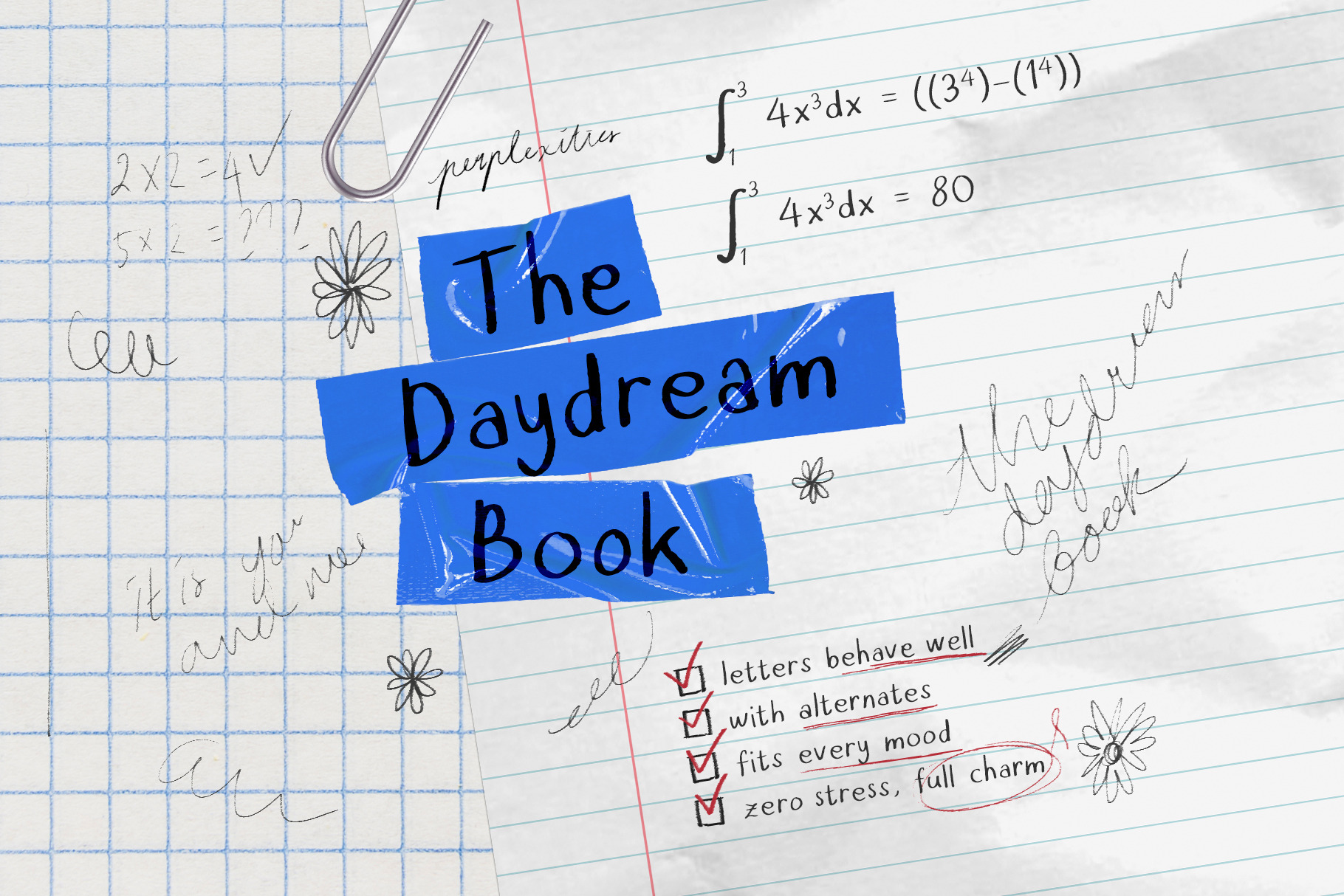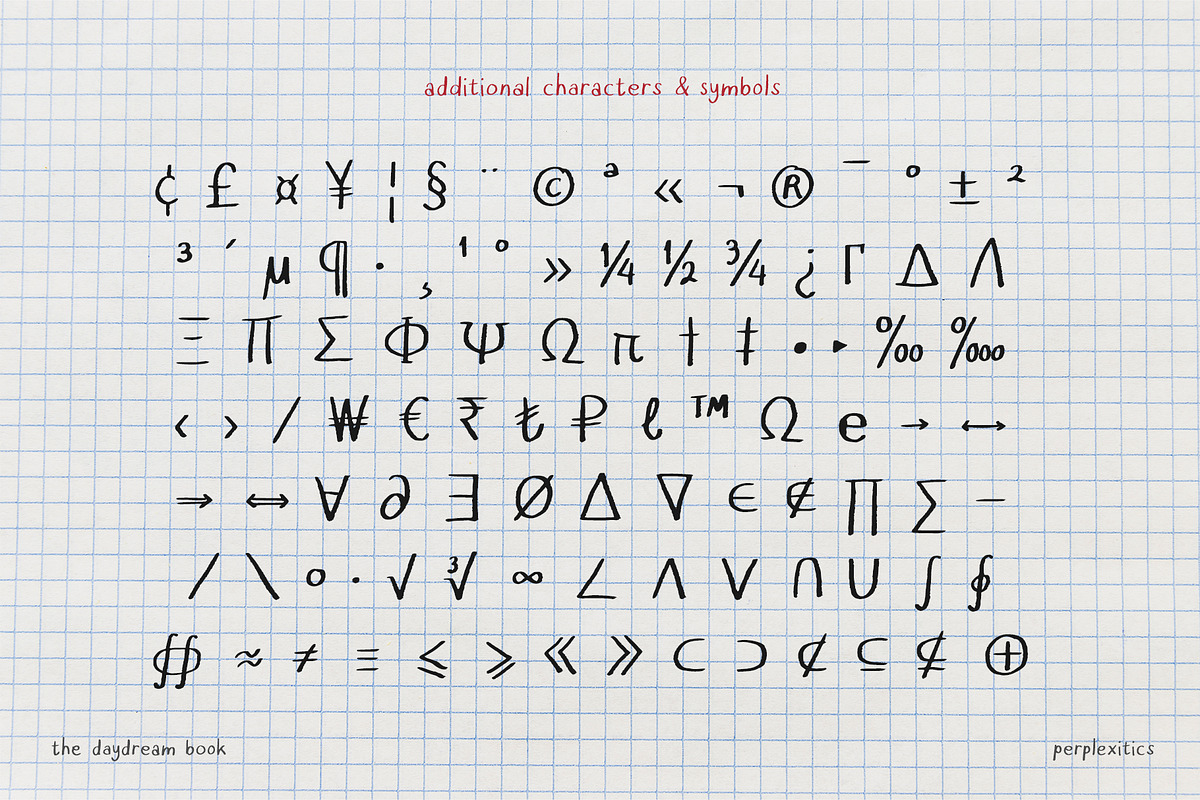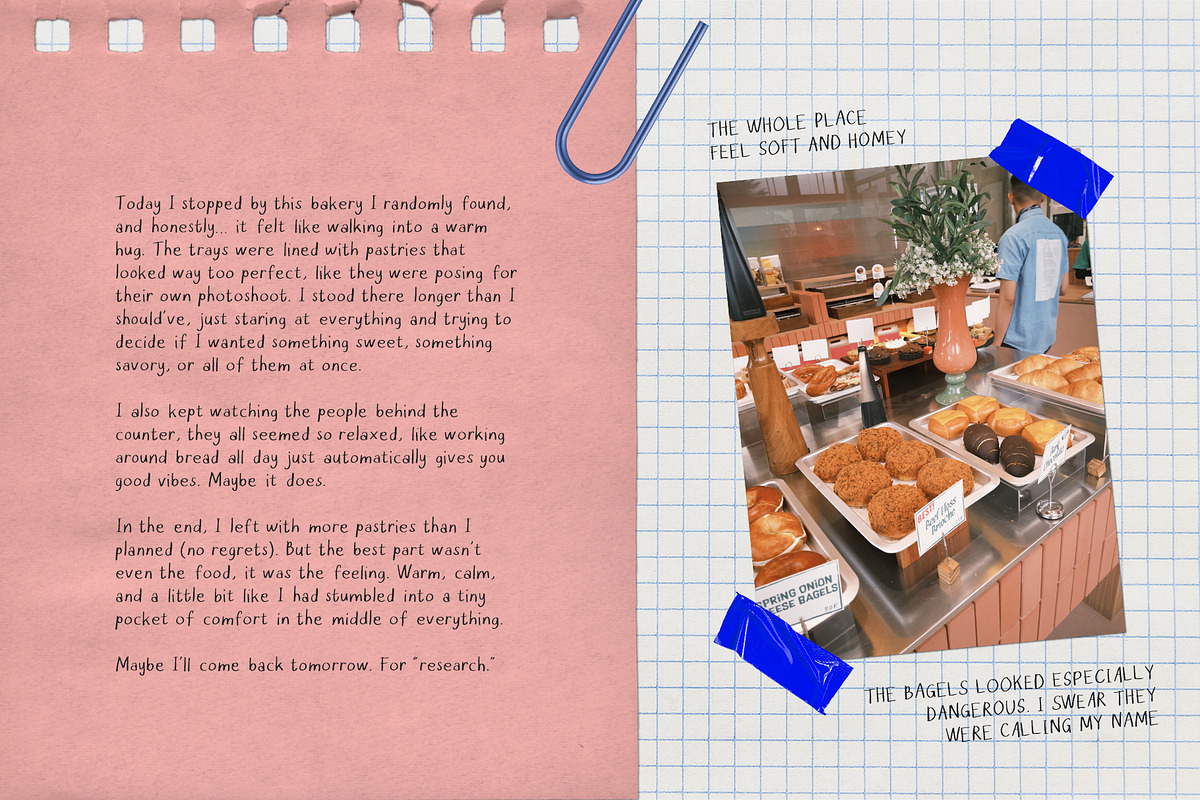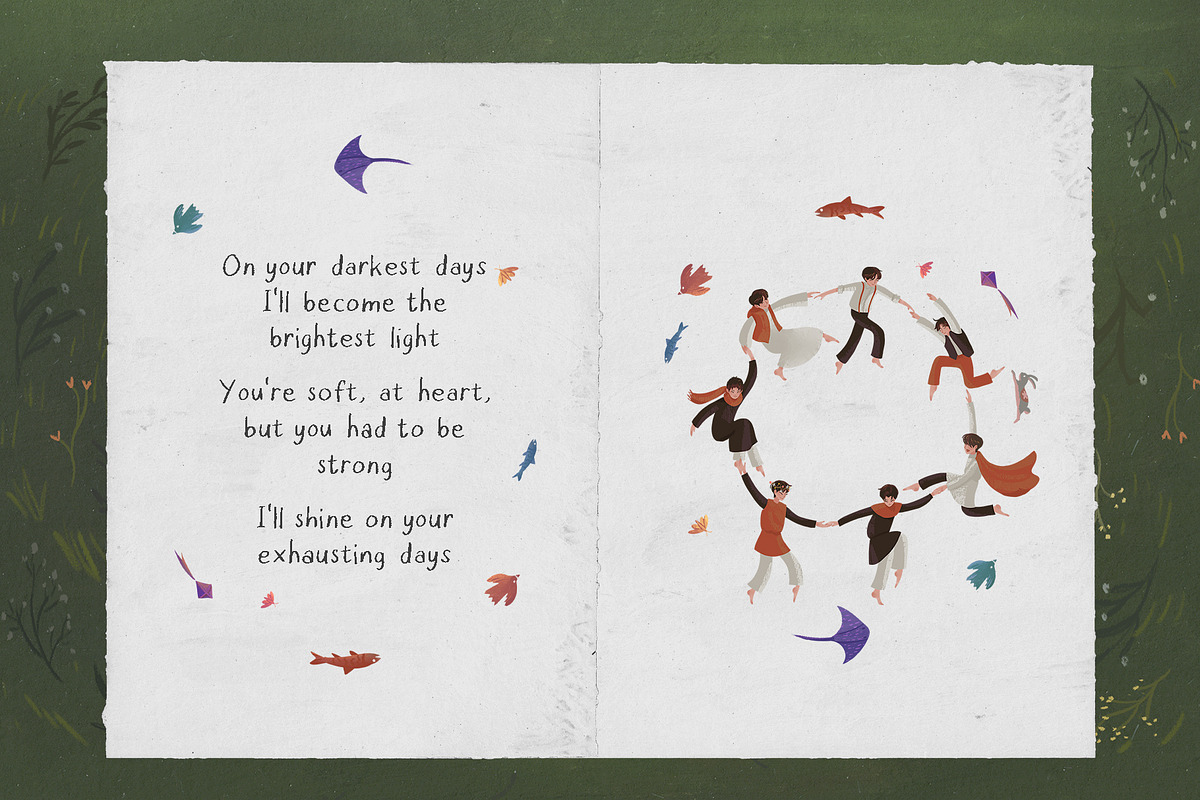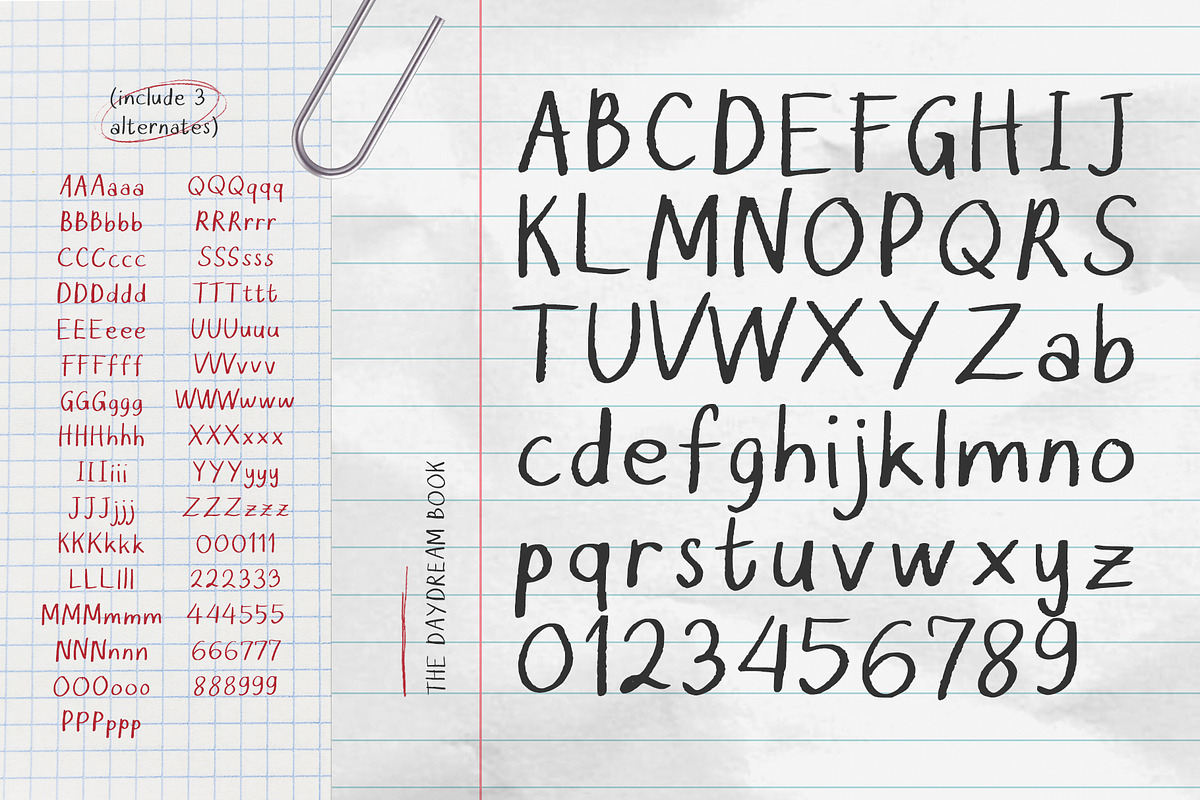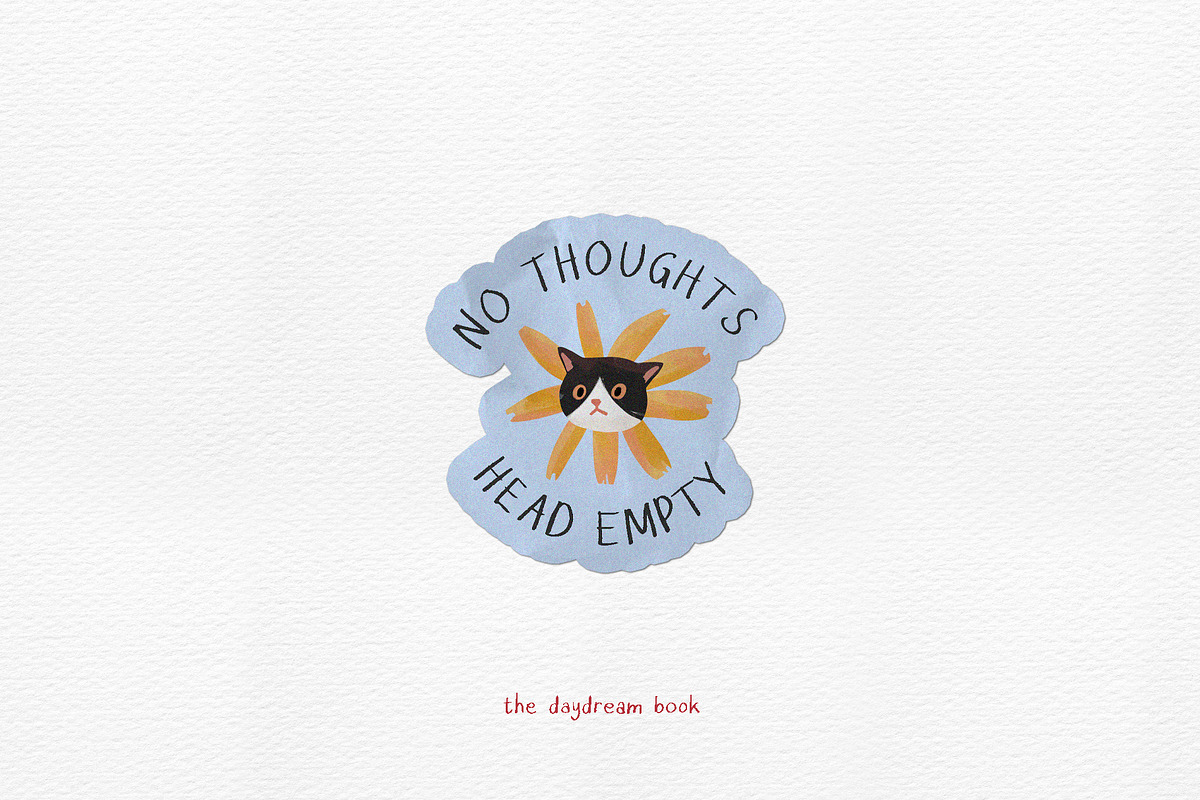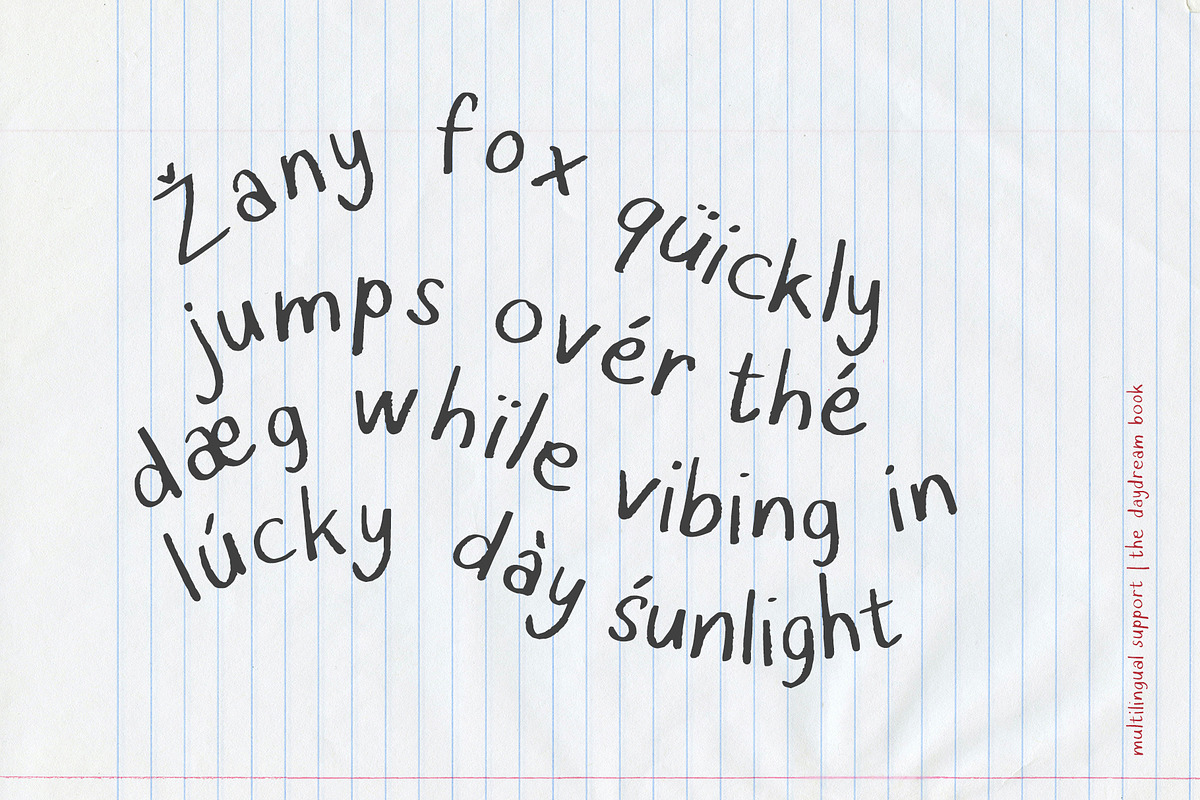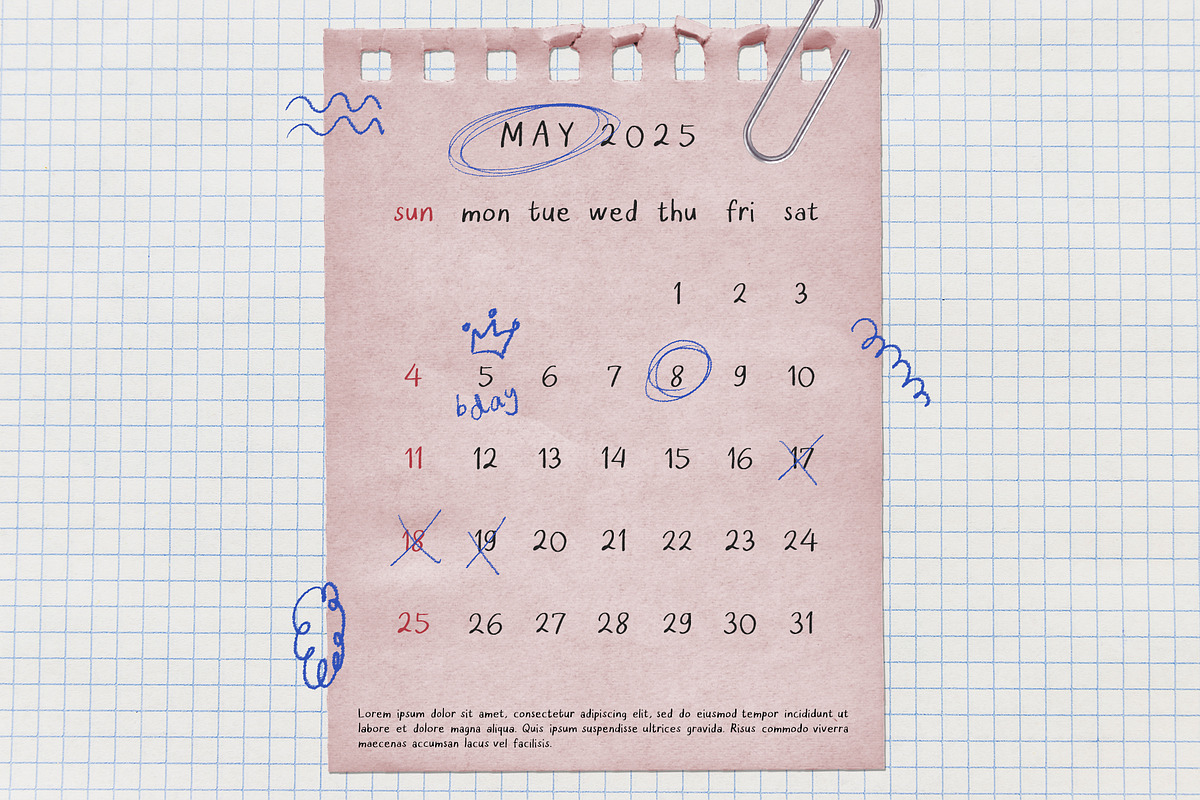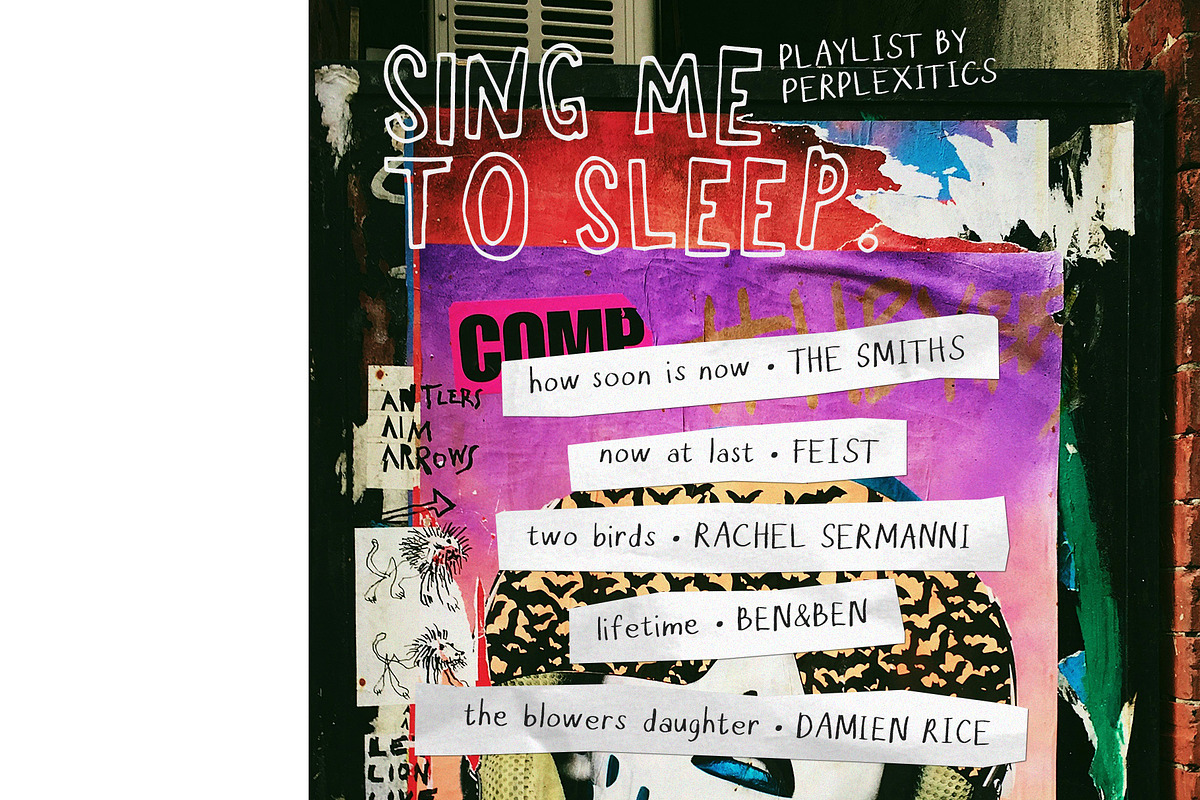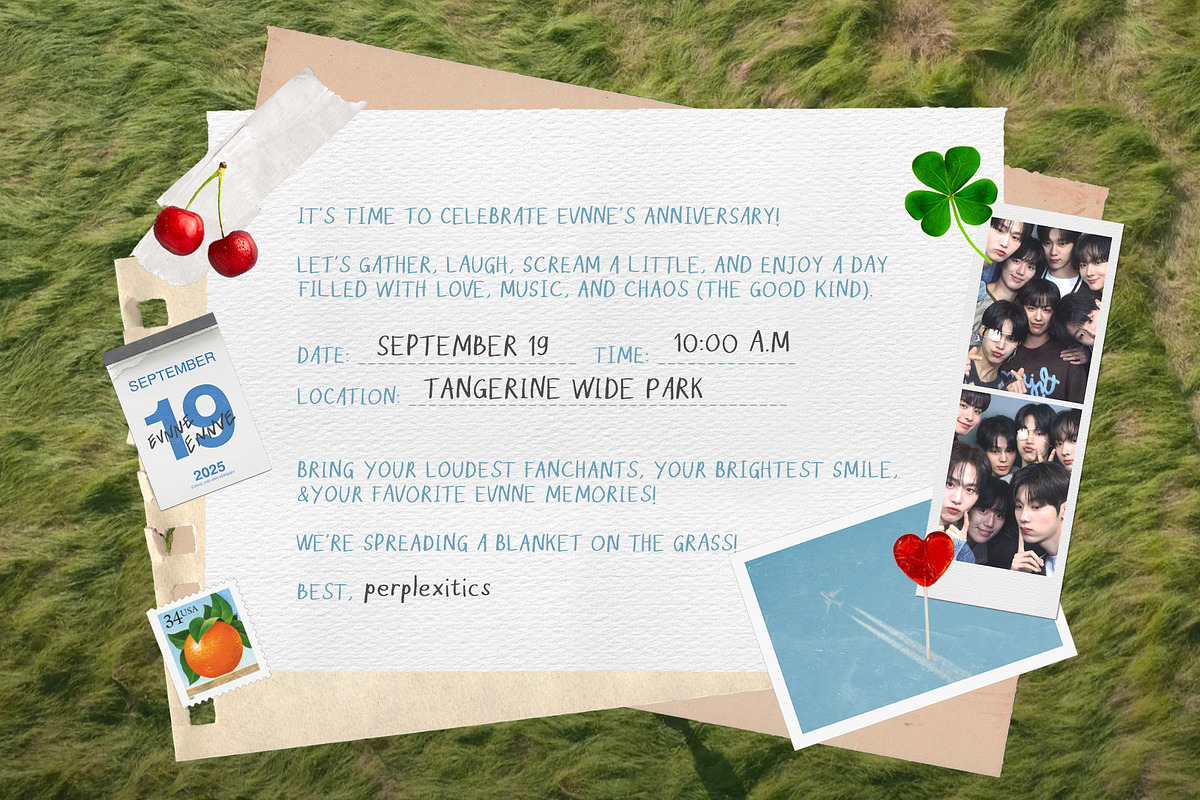
The Daydream Book Handwritten Font
The Daydream Book, a light and friendly handwritten font with a soft quirky touch. Clean, readable, and perfect for digital journals, diary pages, cute branding, stickers, quotes, and anything that needs warm, personal charm. The Daydream Book Handwritten Font is packed with everything you need, including uppercase and lowercase letters, numbers, and punctuation. Multilingual support.